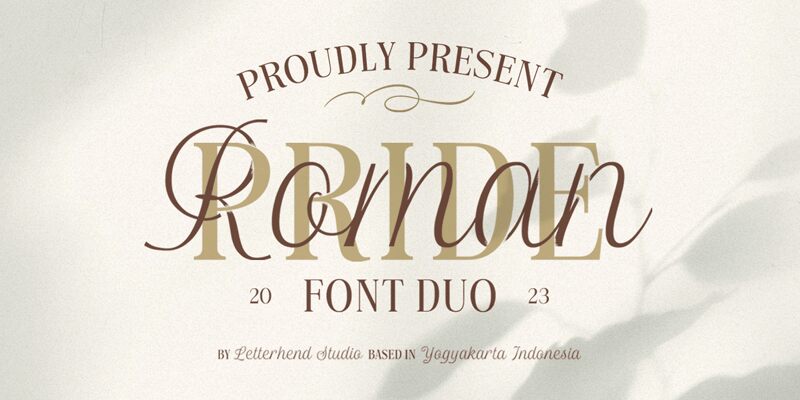
Roman Pride Script, a captivating calligraphic font designed by Letterhend Studio, exudes an air of refined elegance and timeless sophistication. This script-style typeface boasts fluid, graceful letterforms that seamlessly intertwine, creating a harmonious and visually captivating impression. The delicate, ornamental flourishes and subtle variations in stroke weight lend the font a distinct sense of artistry and charm, evoking the essence of classic calligraphy.
With its versatile nature, Roman Pride Script effortlessly transitions between formal and informal settings, making it a versatile choice for a wide range of design applications. From high-end stationery and wedding invitations to product packaging and digital branding, this font has the power to elevate any project with its timeless elegance and refined aesthetic.